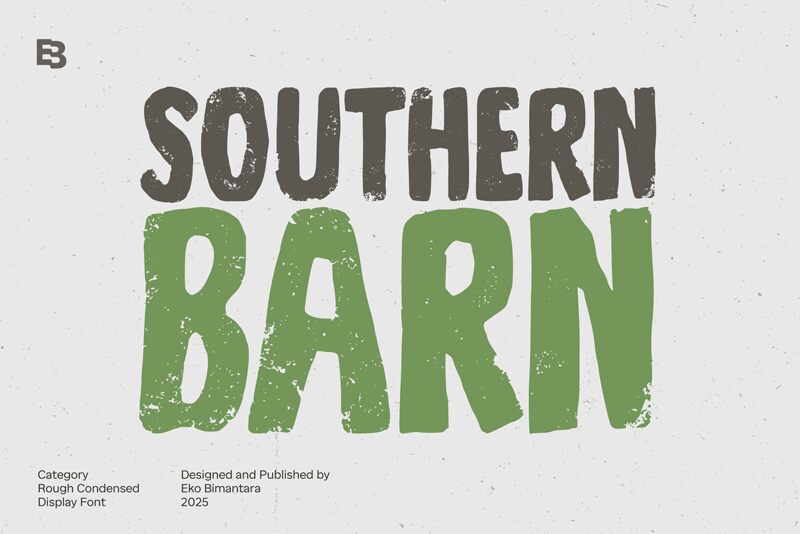
Southern Barn font by Eko Bimantara is a free bold eroded display font. It stands out with heavy, stamped letterforms scarred by grainy chips and paint‑peel textures, like ink pressed onto rough timber. The erosion feels deliberate-not messy-so the thick strokes hold their shape while the worn edges add grit and depth, giving headlines a tactile, hand‑worked presence.
Using Southern Barn, you get instant character for craft beer labels, BBQ menus, outdoor festival posters, rustic packaging, apparel graphics, signage, and social teasers. Its compact rhythm and sturdy silhouettes punch through photography and busy layouts without getting shouty. Set it large with a touch of letterspacing, and pair with a clean condensed sans to keep body copy crisp while this free font delivers the grit on top.